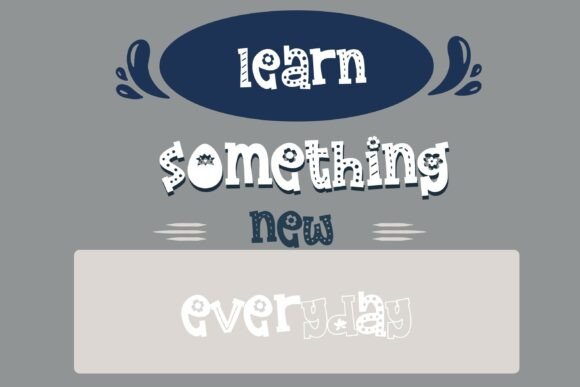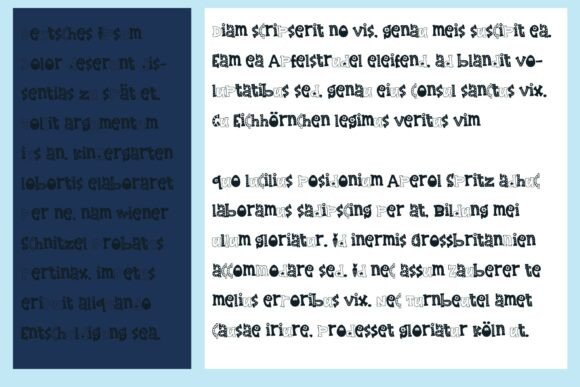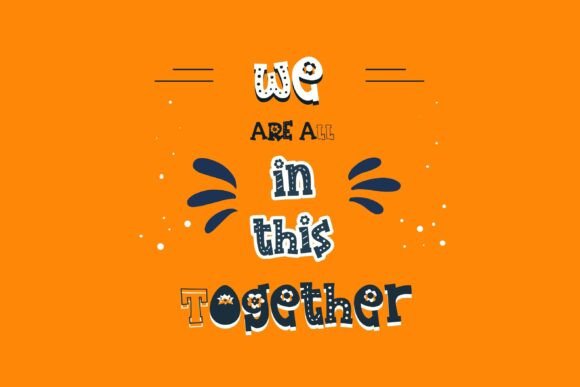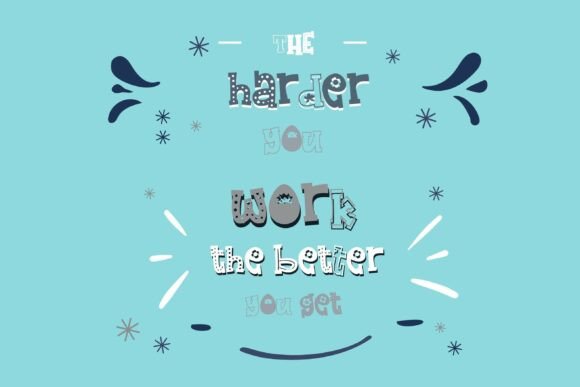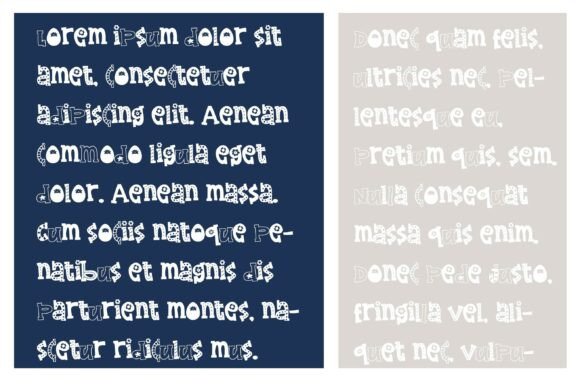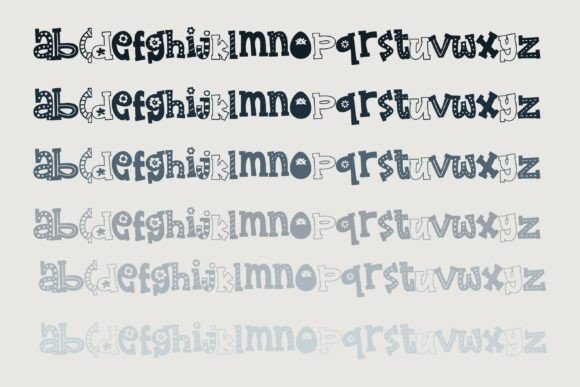
Hop to It: The Whimsical World of Hoppity Block Font
Who hasn’t felt that rush of creative excitement when brainstorming ideas for an Easter-themed project? The pastel colors, the bunnies, the eggs – it’s a time of year that inspires some of the most adorable and imaginative designs out there. For designers looking to add a touch of whimsy to their Easter-themed invitations, greeting cards, and more, the Hoppity Block Font is a game-changer.
This hand-crafted font is a delightful combination of playful Easter imagery and traditional serif typography, making it the perfect choice for adding a personal touch to any project. And for designers, the value of Hoppity Block Font lies in its ability to elevate even the simplest designs into something truly special.
Hoppity Block Font Key Features
- Font Family: Hoppity Block Font is a custom-designed sans-serif font, perfect for adding a playful touch to your digital projects.
- Character Set: Includes a wide range of characters, including uppercase and lowercase letters, numbers, and punctuation marks, ensuring versatility in your designs.
- Unique Characteristics: Hoppity Block Font features a distinctive block-like structure, giving it a bold and playful appearance that is sure to grab attention.
Hoppity Block Font Review
I was excited to dive into the Hoppity Block Font, and overall, I have mixed feelings about it. Let’s break it down.
- The font’s playful and whimsical nature is perfect for children’s books, magazines, or other projects that require a touch of fun.
- The block-style letters are bold and easy to read, even at smaller sizes.
- The font is well-suited for headings and titles, as it adds a sense of excitement and energy.
- The font may be too playful for more serious or formal projects, such as business reports or academic papers.
- The bold style can be overwhelming if used extensively throughout a design.
- The font lacks a clear hierarchy of weights, which can make it difficult to create visual interest.
The Hoppity Block Font is a fun and engaging choice for the right projects, but it may not be the best fit for every design. If you’re looking for a playful and attention-grabbing font, Hoppity Block could be a great option. However, if you need a more serious or formal font, you may want to consider other options.
Hoppity Block Font is ideal for creating playful and eye-catching designs, such as:
- Children’s party invitations
- Game and toy packaging